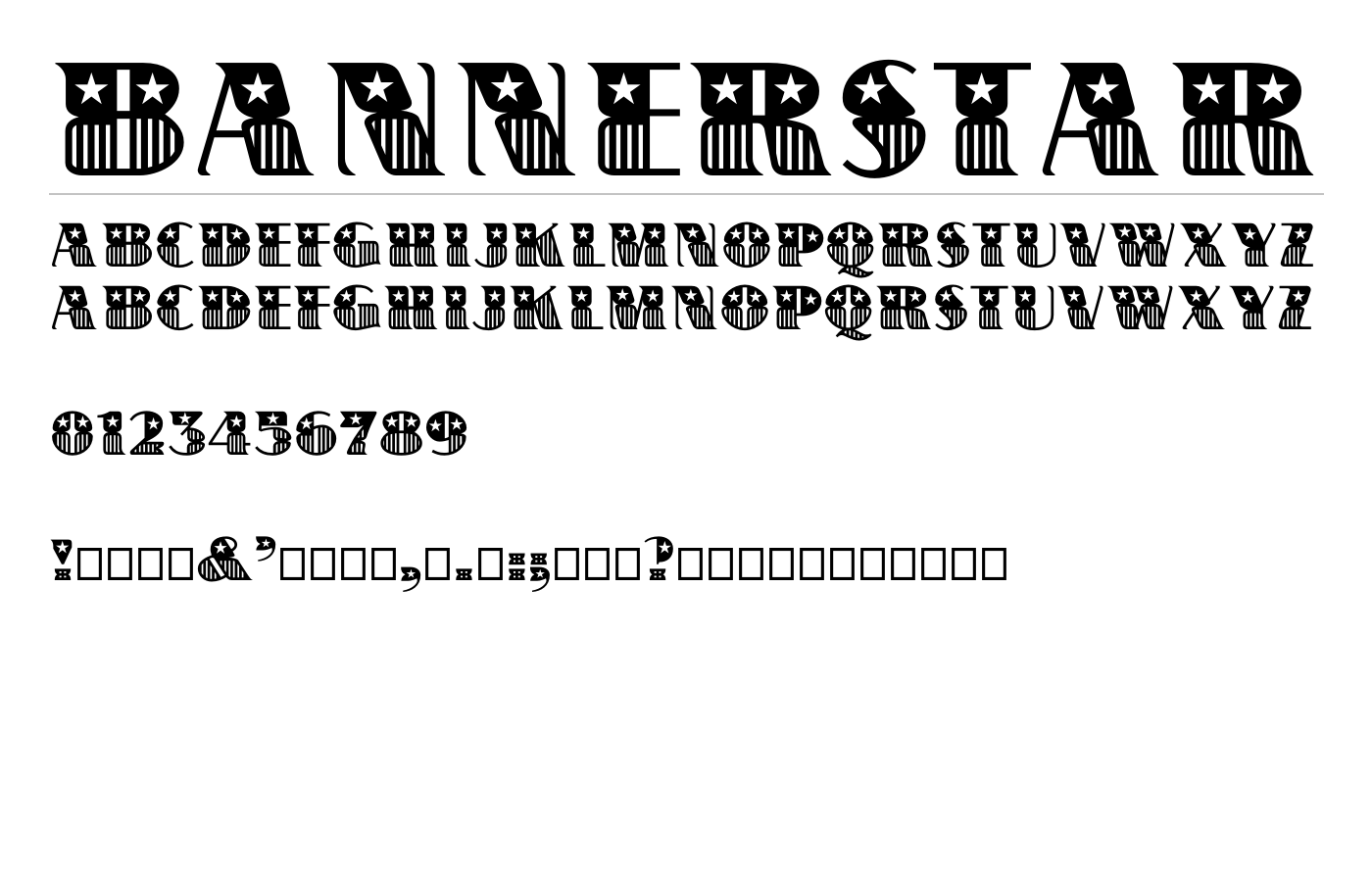
BannerStar Font is a bold slab serif typeface featuring strong, decorative elements like stars and stripes within its letterforms, evoking a vintage Americana or circus poster style. With its condensed width, high contrast, and playful yet solid structure, it commands attention and adds a lively, patriotic flair perfect for headlines, signage, and branding that seeks a retro, eye-catching vibe. This font works best in display settings where its unique ornamental qualities can shine without sacrificing readability.
BannerStar Font
About BannerStar Font